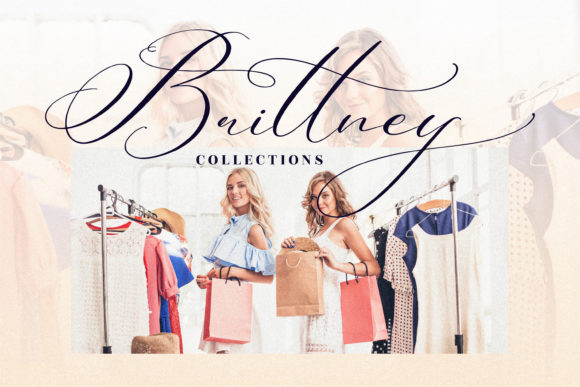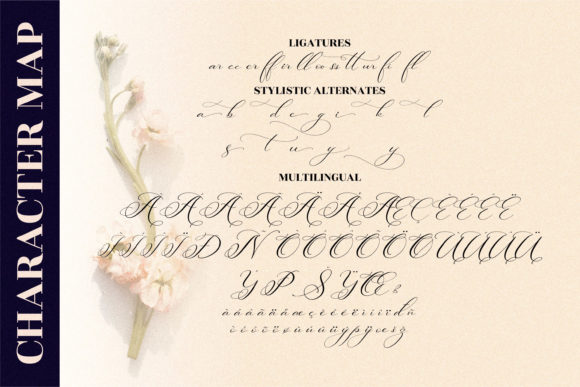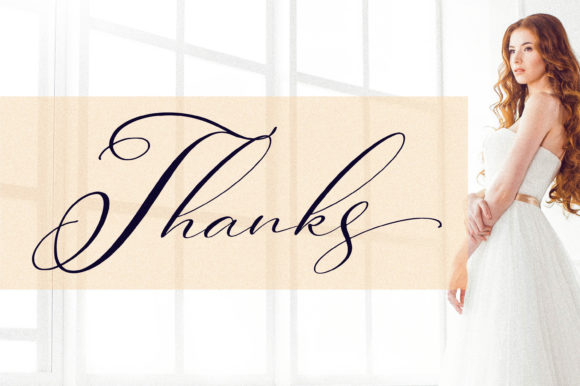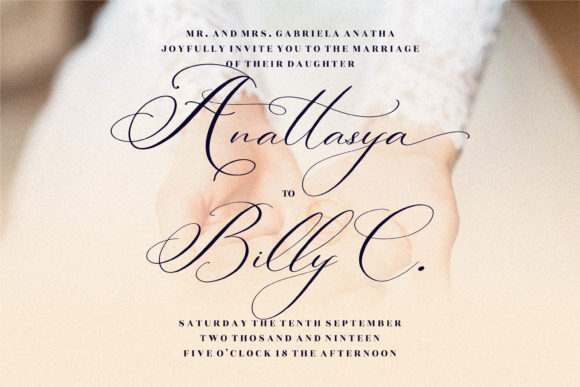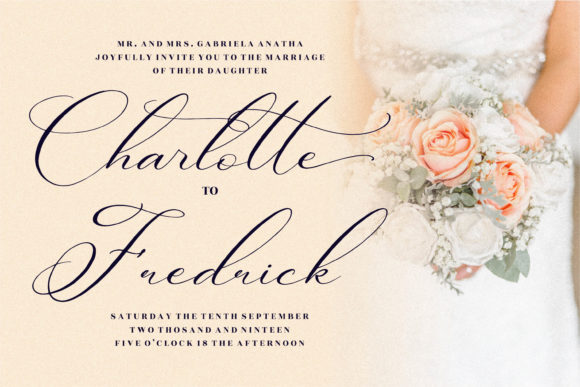
About Berlishanty Calligraphy Font
Berlishanty Calligraphy is a thin lettered and graceful script font. Fall for its ravishing style and use it to create gorgeous wedding invitations, beautiful stationary art, eye-catching social media posts, and much more!